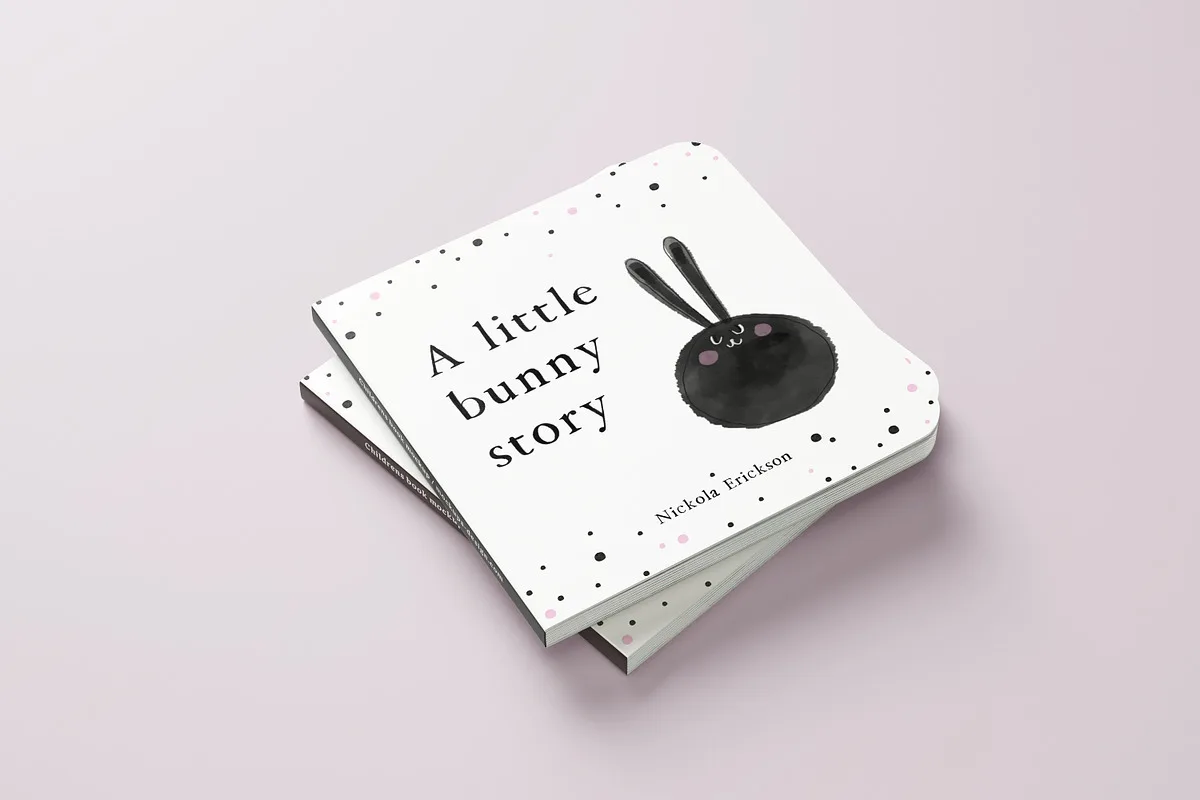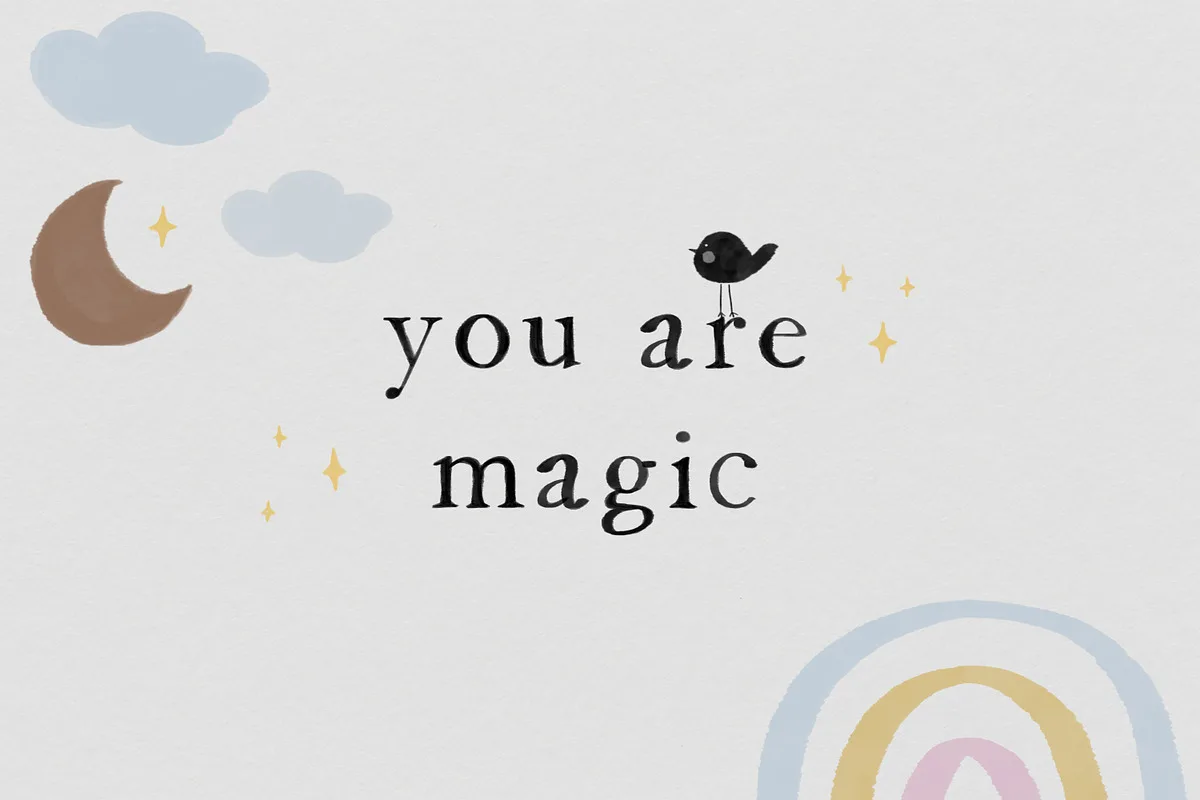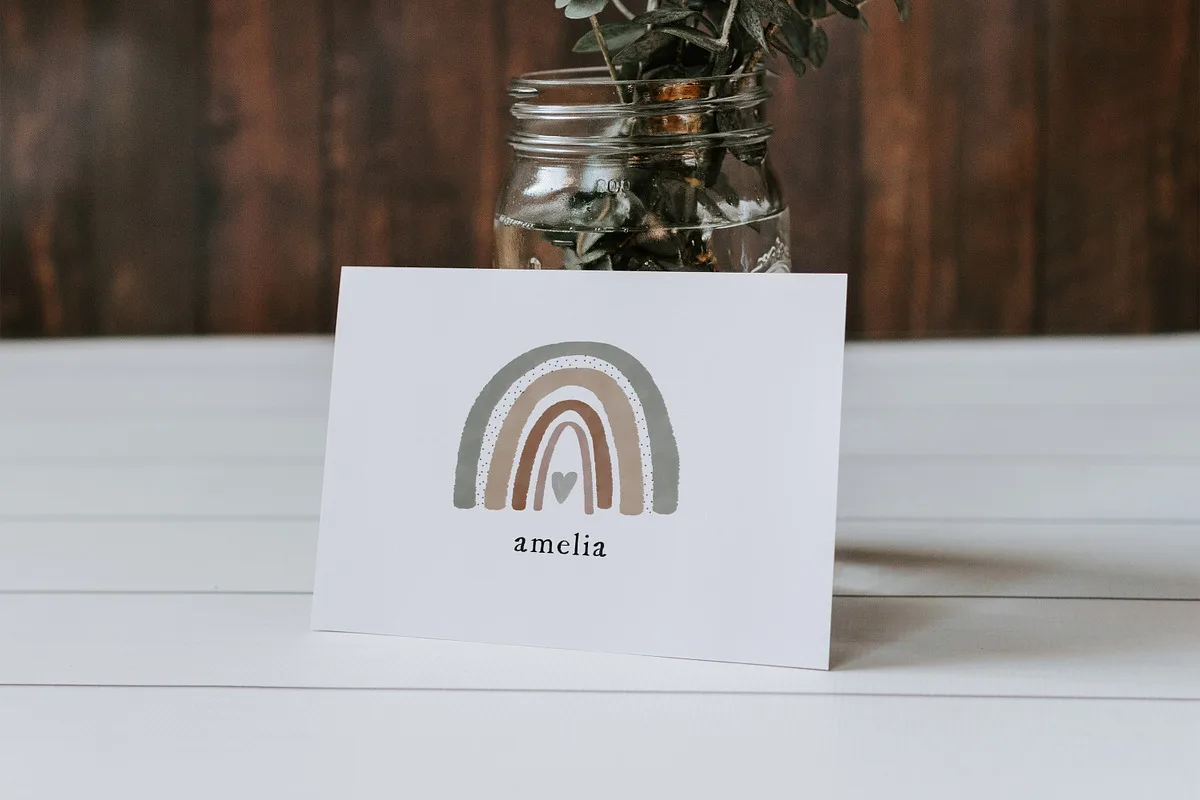
Little Bee is a new collection of display serif typefaces with cute illustrations. Perfect for logos, cards, posters and other designs. The SVG font requires Photoshop CC 2017+, Illustrator CC 2018+ or Procreate 5 to use. The vector version is in a traditional font format and are widely supported. All the letters of Little Bee are raster bitmap font – each letter has been painted a dozen of times.